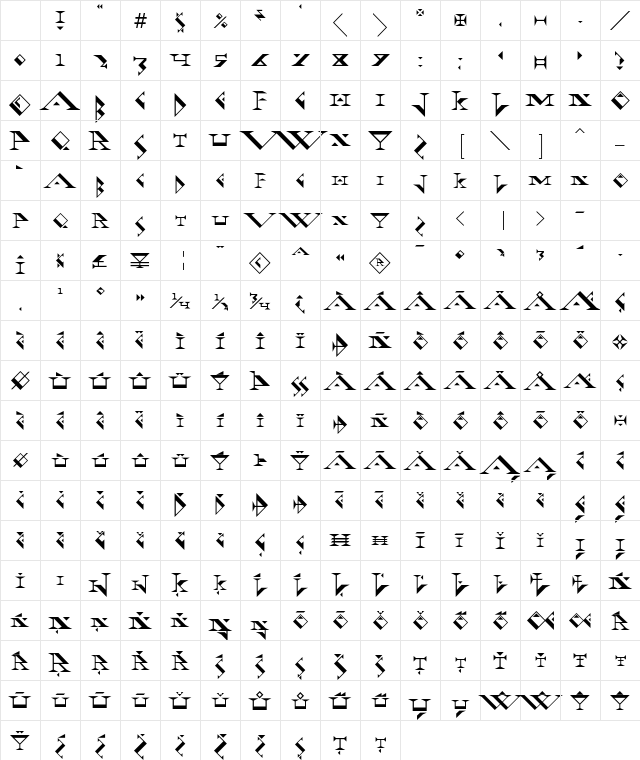
Complete Fadgod Regular glyph index. Displaying only characters natively supported by Fadgod Regular font.
Fadgod is a composed and adaptable typeface that performs quietly and consistently across a wide range of design contexts.